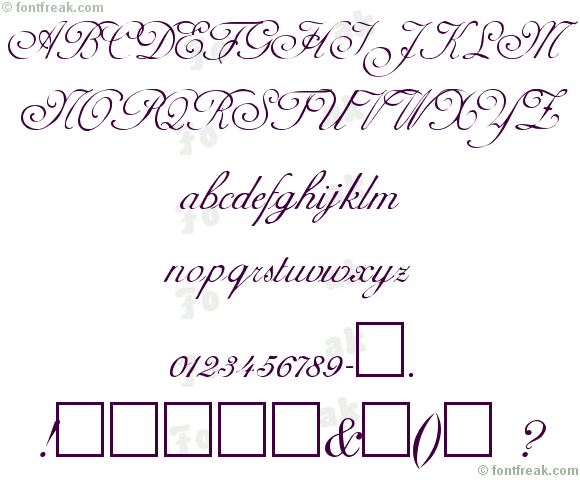
AdineKirnberg Regular
About Adine Kirnberg
Adine Kirnberg is a captivating script font designed by David Rakowski in 1991, characterized by its elegant and flowing letterforms. This shareware typeface offers a unique blend of sophistication and readability, making it ideal for a variety of design projects. The font features a moderate stroke weight with gentle contrast, providing a sense of warmth and approachability. Its graceful curves and fluid connections between letters create a harmonious flow that enhances the overall aesthetic, while the spacing is thoughtfully balanced to ensure clarity and legibility.
Adine Kirnberg is particularly well-suited for use in wedding invitations, where its romantic style can beautifully convey the essence of love and celebration. It also excels in designing restaurant menus, adding a touch of elegance that can elevate the dining experience. Additionally, this font can serve as a standout choice for movie posters, where its dynamic flair captures the viewer's attention and sets the tone for the film. Graphic designers and content creators will find it useful for crafting logos or branding materials that require a personal and artistic touch.
Targeted towards graphic designers, small business owners, and content creators, Adine Kirnberg offers versatility and charm in a variety of contexts. Its unique character and engaging style make it a valuable addition to any designer's toolkit. For those seeking to enhance their projects with a distinctive handwritten feel, the Adine Kirnberg font free download provides an accessible option without compromising on quality.
In a world saturated with fonts, Adine Kirnberg stands out for its ability to blend artistic flair with practicality, allowing your designs to convey both emotion and professionalism. This font is not just a typeface; it’s an artistic expression that brings any text to life.